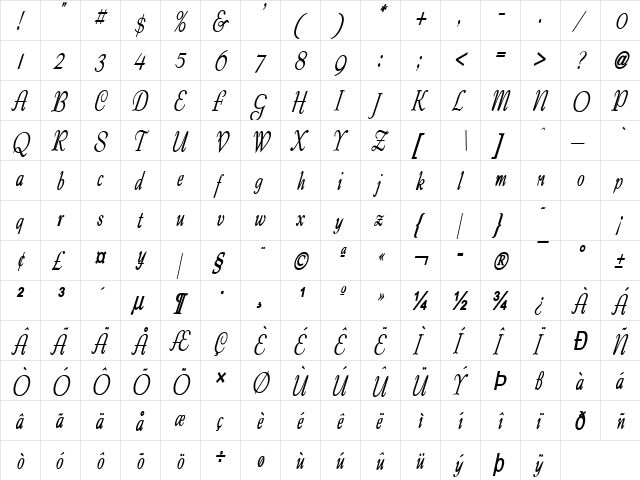
Tango Condensed BoldItalic Font Preview
Design Context for Tango Condensed Typeface
Tango Condensed is a composed and adaptable typeface that performs quietly and consistently across a wide range of design contexts. The slanted form adds forward momentum and visual energy. Its bold stroke weight gives it real presence on the page. Its narrow stance lets it pack a punch even in space-constrained designs.
Pro Tip: Try Tango Condensed for annotation and caption copy alongside an upright companion — the contrast in angle creates a dynamic but ordered typographic system.